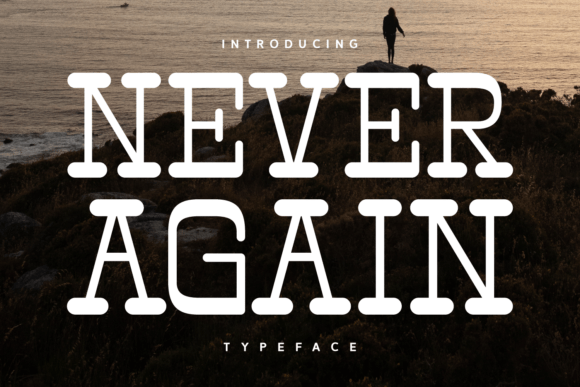
Never Again Font: A Unique Serif Typeface for Bold Statements
The world of typography is vast and diverse, with countless fonts available for various design needs. Among these, the Never Again font stands out for its distinctive characteristics and versatility. This article explores the Never Again font, its features, and its applications in design, highlighting why it has become a popular choice among designers.
What is Never Again Font?
Never Again is a unique serif typeface characterized by its rounded terminals and bold, impactful aesthetic. It seamlessly blends vintage and modern elements, creating a visually appealing and memorable look. The font’s design makes it suitable for a wide range of applications, from posters and outdoor signage to album covers and strong typographic branding.
Key Features of Never Again Font
- Rounded Terminals: The rounded terminals of Never Again add a touch of softness to its otherwise bold and impactful design. This feature makes the font versatile and suitable for various design projects.
- Vintage-Meets-Modern Aesthetic: The font’s unique blend of vintage and modern elements gives it a distinctive look that can enhance the visual appeal of any design.
- Serif Typeface: As a serif typeface, Never Again includes small lines or flourishes at the ends of its strokes, which can add a level of sophistication and elegance to designs.
- Bold and Impactful: The bold nature of the font ensures that it stands out, making it perfect for creating strong visual statements.
Applications of Never Again Font
The versatility of Never Again font makes it suitable for a variety of design applications. Here are some of the most popular uses:
- Posters: The bold and impactful nature of Never Again makes it an excellent choice for posters. It can effectively grab attention and convey messages clearly.
- Outdoor Signage: For outdoor signage, visibility and readability are crucial. Never Again’s unique design ensures that it stands out and is easily readable from a distance.
- Album Covers: The vintage-meets-modern aesthetic of Never Again makes it a popular choice for album covers. It can add a touch of nostalgia and modernity to music packaging.
- Strong Typographic Branding: For brands looking to make a strong visual statement, Never Again can be an excellent choice. Its bold and impactful design can help create a memorable brand identity.
Tips for Using Never Again Font
To make the most of Never Again font, consider the following design tips:
- Pair with Complementary Fonts: Never Again can be paired with sans-serif fonts for a modern contrast or with other serif fonts for a more traditional look.
- Adjust Font Size and Weight: Experiment with different font sizes and weights to create visual hierarchy and emphasis in your designs.
- Use Color Strategically: The bold nature of Never Again allows it to work well with a variety of colors. Use color strategically to enhance the impact of the font.
Inspiration and Examples
Looking for inspiration on how to use Never Again font? Here are some examples of stunning designs created with this unique typeface:
- Music Posters: Use Never Again for music posters to give them a bold and eye-catching look.
- Vintage-Style Logos: Create vintage-style logos with a modern twist using Never Again’s unique blend of classic and contemporary elements.
- Movie Titles: The bold and impactful nature of Never Again makes it suitable for movie titles and theatrical posters.
Never Again font is a versatile and impactful typeface that can elevate various design projects. Its unique blend of vintage and modern elements, combined with its bold and impactful aesthetic, makes it a popular choice among designers. By understanding its features and applications, designers can effectively utilize Never Again to create visually appealing and memorable designs.
- What is Never Again font? Never Again is a unique serif typeface with rounded terminals and a bold, impactful aesthetic.
- What are the key features of Never Again font? The key features include rounded terminals, a vintage-meets-modern aesthetic, and a bold and impactful design.
- What are the best applications for Never Again font? It is suitable for posters, outdoor signage, album covers, and strong typographic branding.